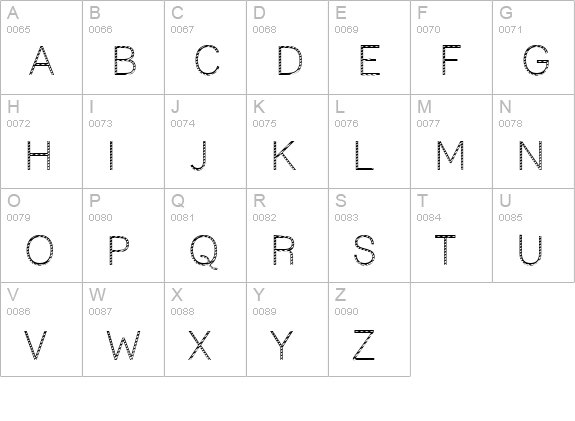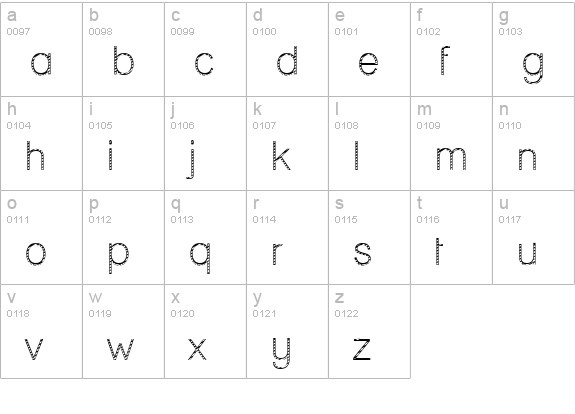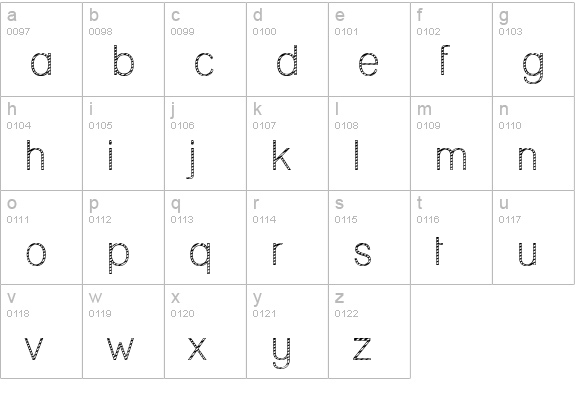
Introducing Lane - Cane font, a stunning typeface that effortlessly combines elegance and versatility. With its sleek and modern design, Lane - Cane font is perfect for a wide range of creative projects, from branding and logo design to editorial layouts and social media graphics. This font features clean lines and distinct letterforms that exude sophistication and professionalism. Its carefully crafted characters create a harmonious balance between classic and contemporary aesthetics, making Lane - Cane font a timeless choice for any design endeavor. One of the standout features of Lane - Cane font is its extensive character set, which includes uppercase and lowercase letters, numerals, punctuation marks, and special characters. This comprehensive range of glyphs allows you to unleash your creativity and bring your ideas to life with ease. Furthermore, Lane - Cane font is freely available to download at FontsMarket.com. This means that you can enjoy the beauty and functionality of this exceptional typeface without any cost. Whether you're a professional designer or a hobbyist, Lane - Cane font offers you the opportunity to elevate your projects without breaking the bank. So, why wait? Download Lane - Cane font today and unlock a world of possibilities for your designs. With its timeless elegance and versatile nature, this font will undoubtedly become a valuable asset in your creative toolkit. Don't miss out on the opportunity to enhance your projects and leave a lasting impression with Lane - Cane font.